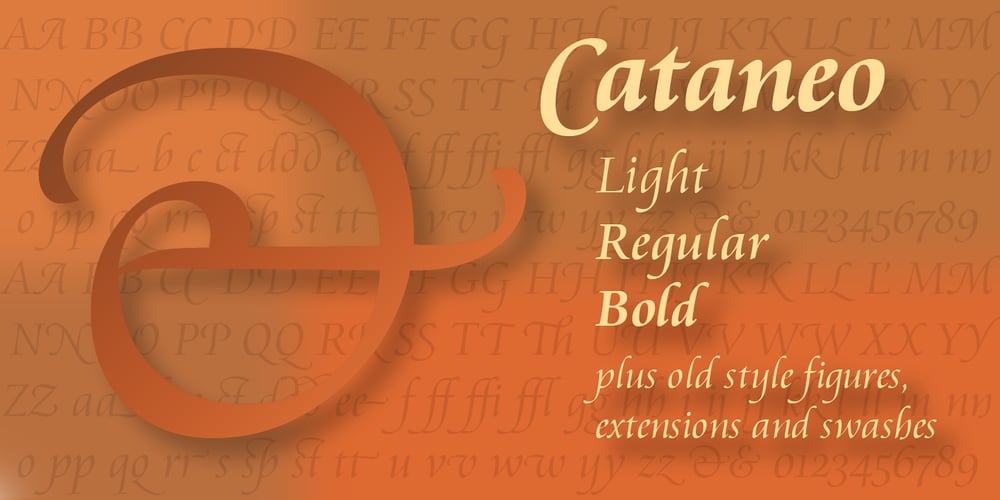
Cataneo BT Font Family was designed by Richard Lipton, Morris Fuller Benton, Jacqueline Sakwa and published by Bitstream. Cataneo BT contains 12 styles and family package options. Cataneo was designed at Bitstream by Richard Lipton and Jacqueline Sakwa and was initially released in 1993. Cataneo is an elegant chancery cursive typeface, inspired by the work of Bernardino Cataneo, a 16th-century Italian writing master. Cataneo offers as companions, typographer sets of swash characters and extensions to round out the family of three weights.